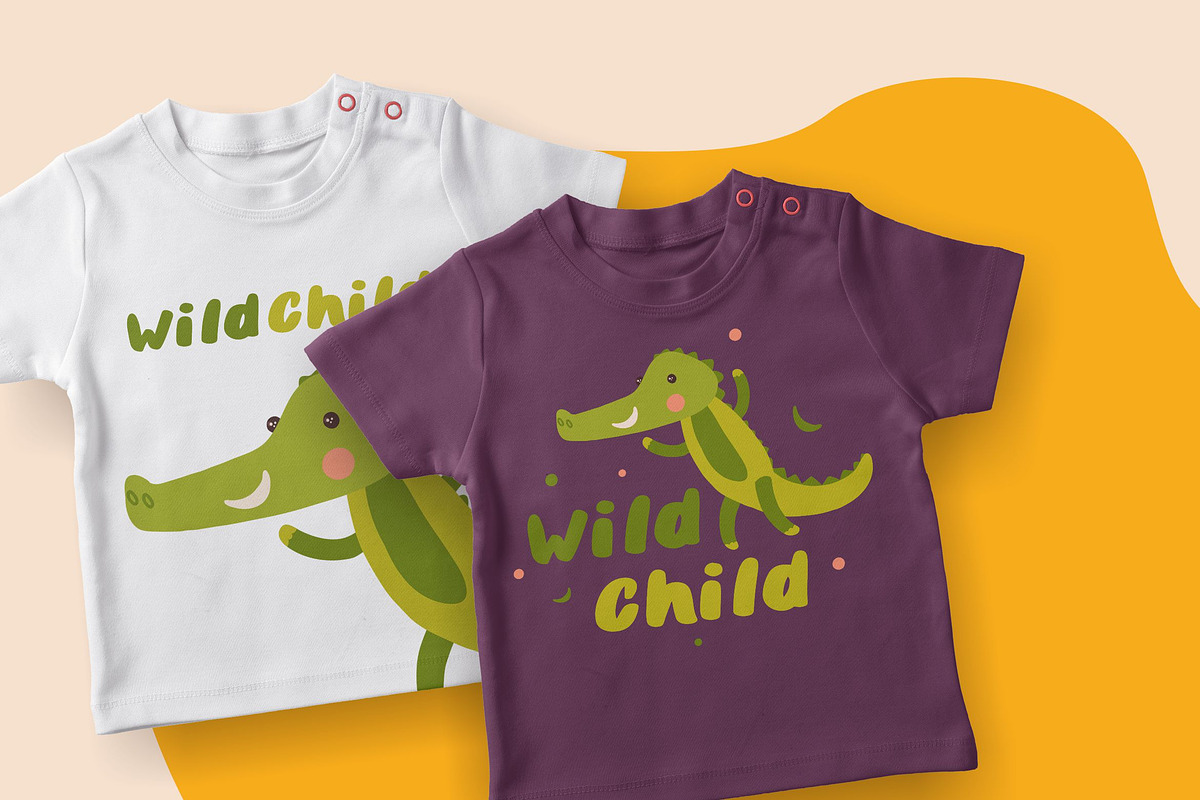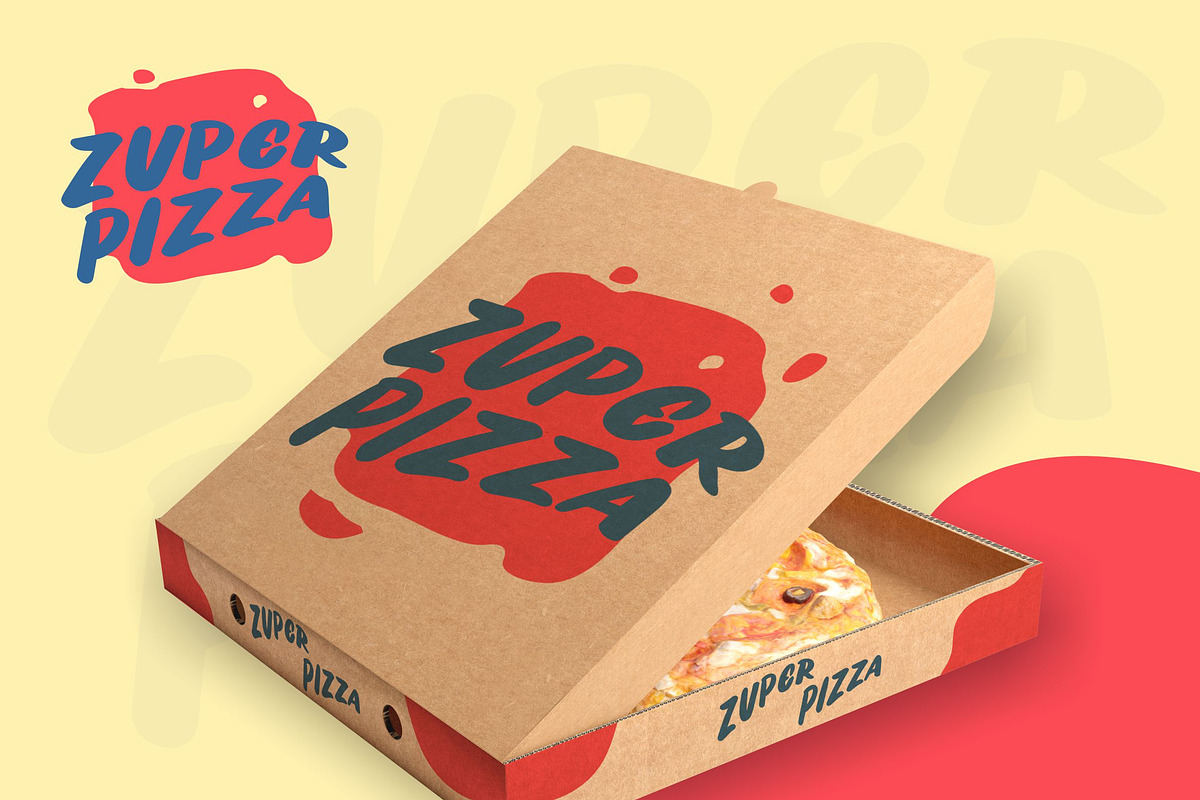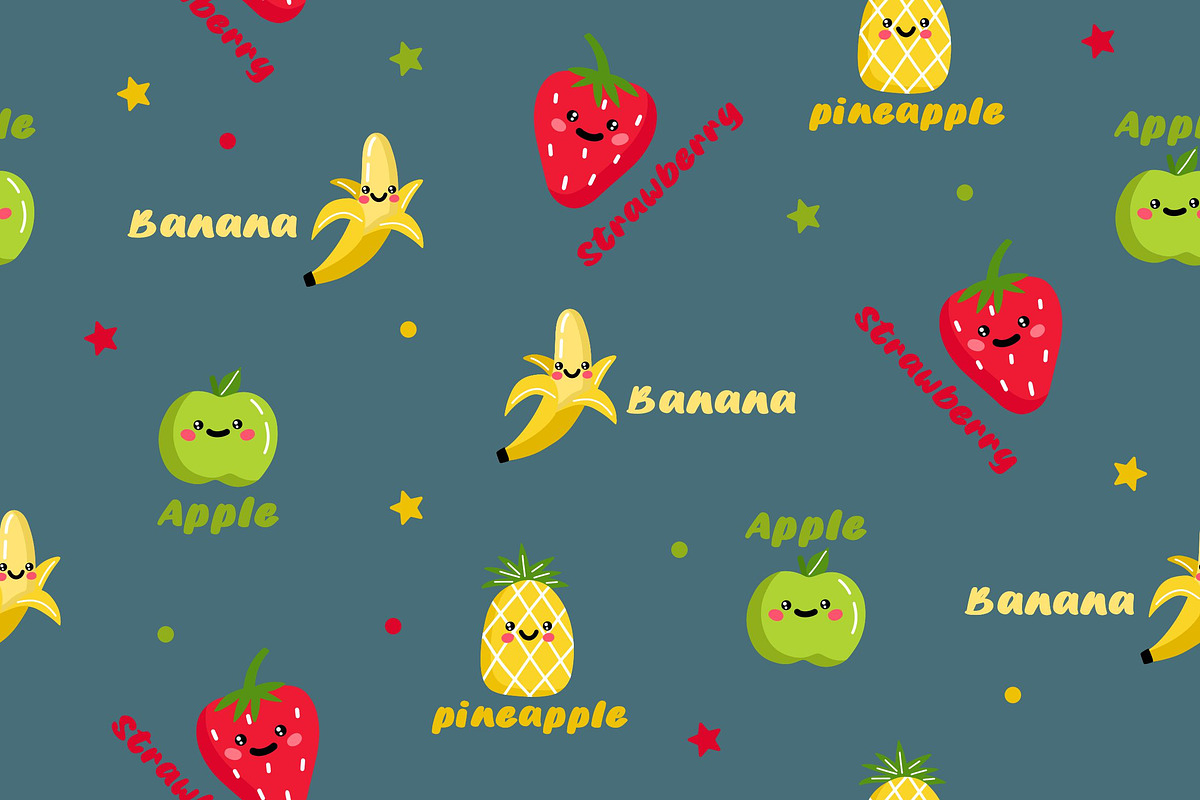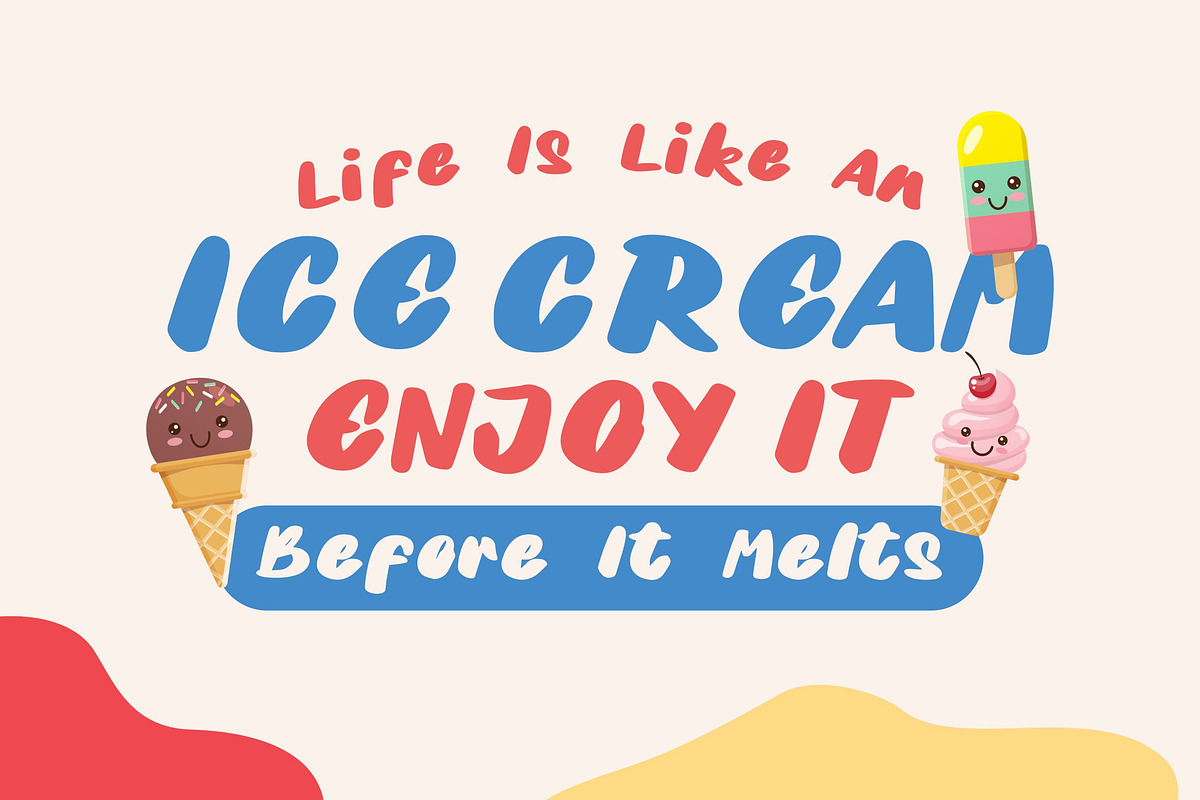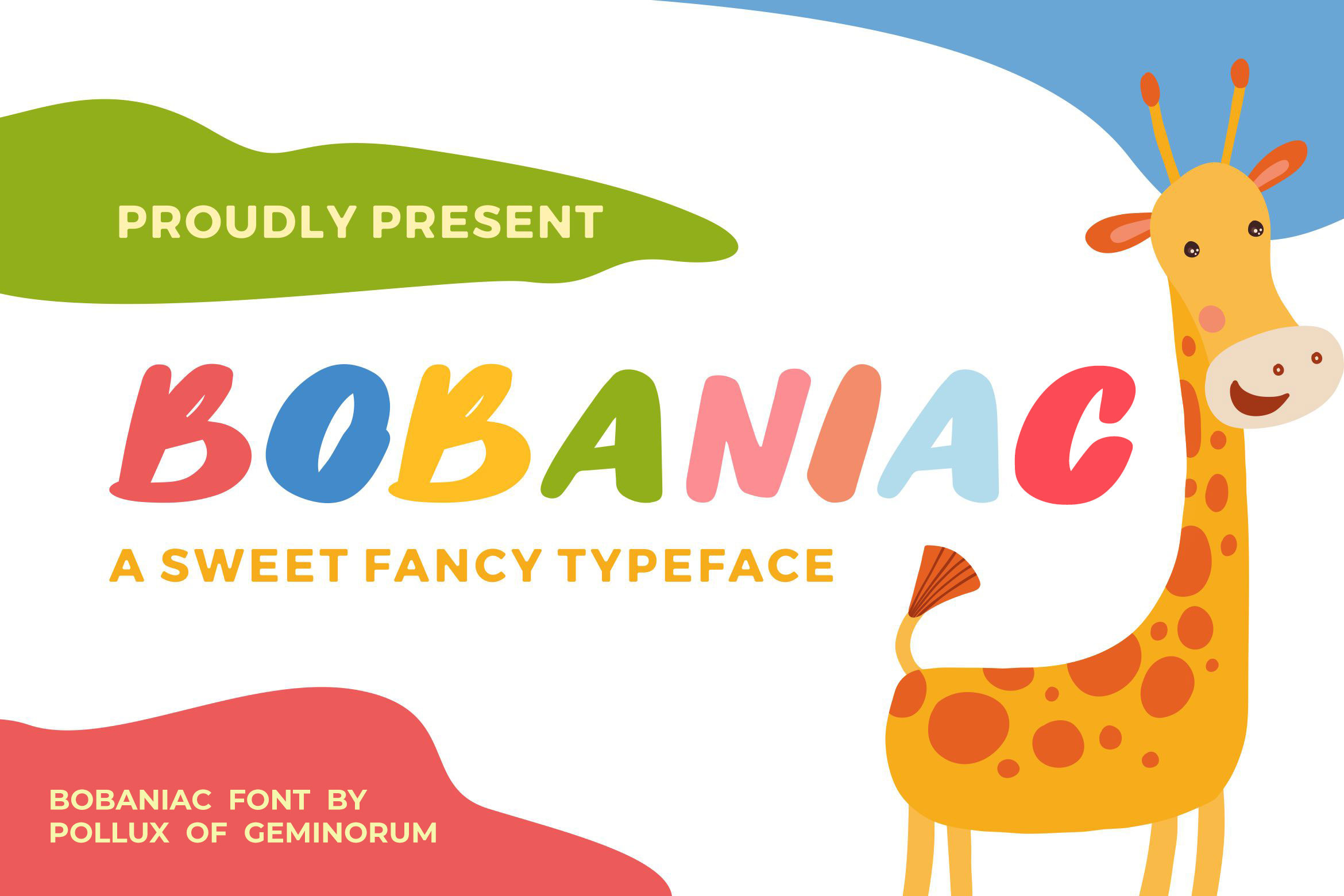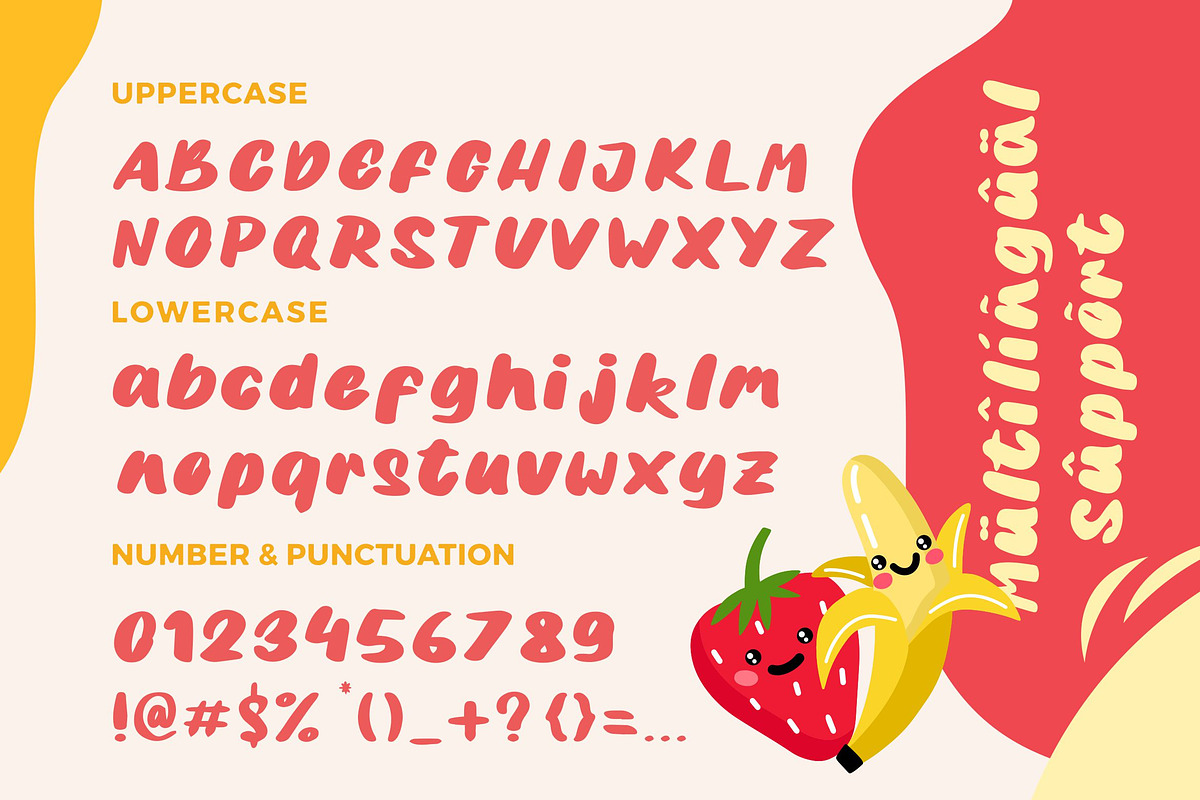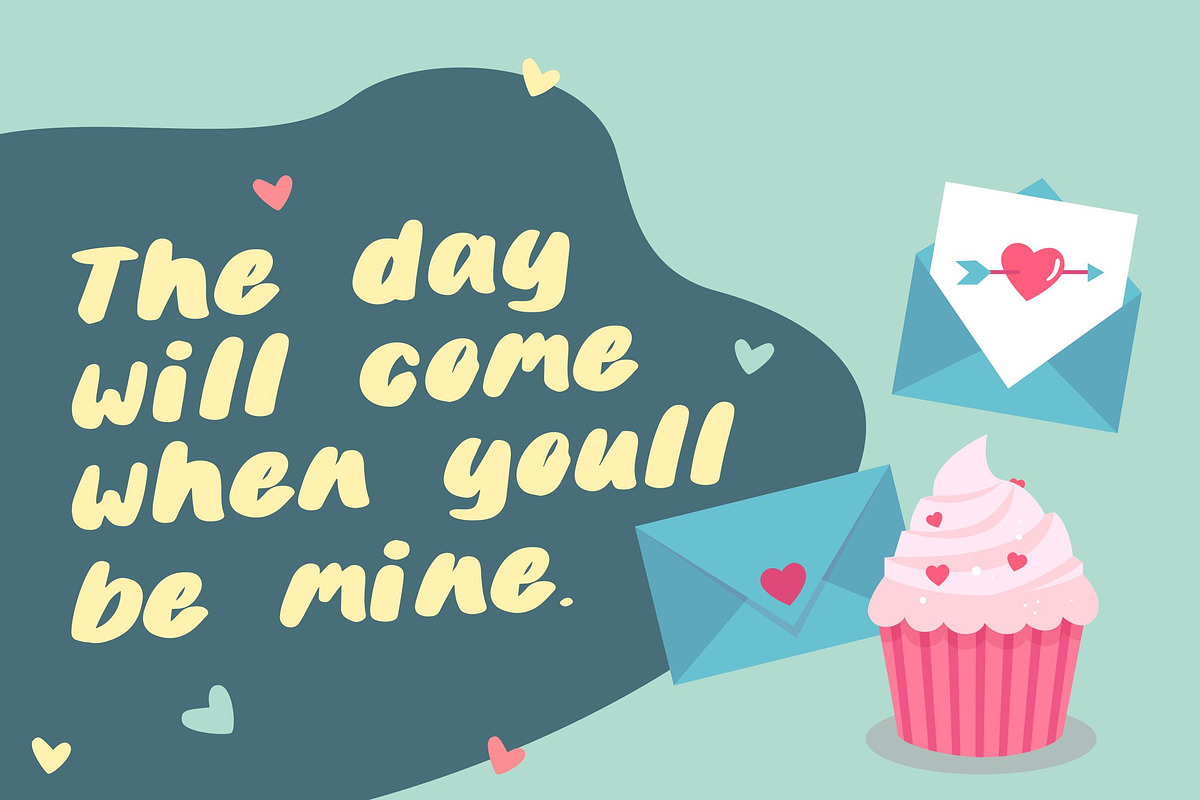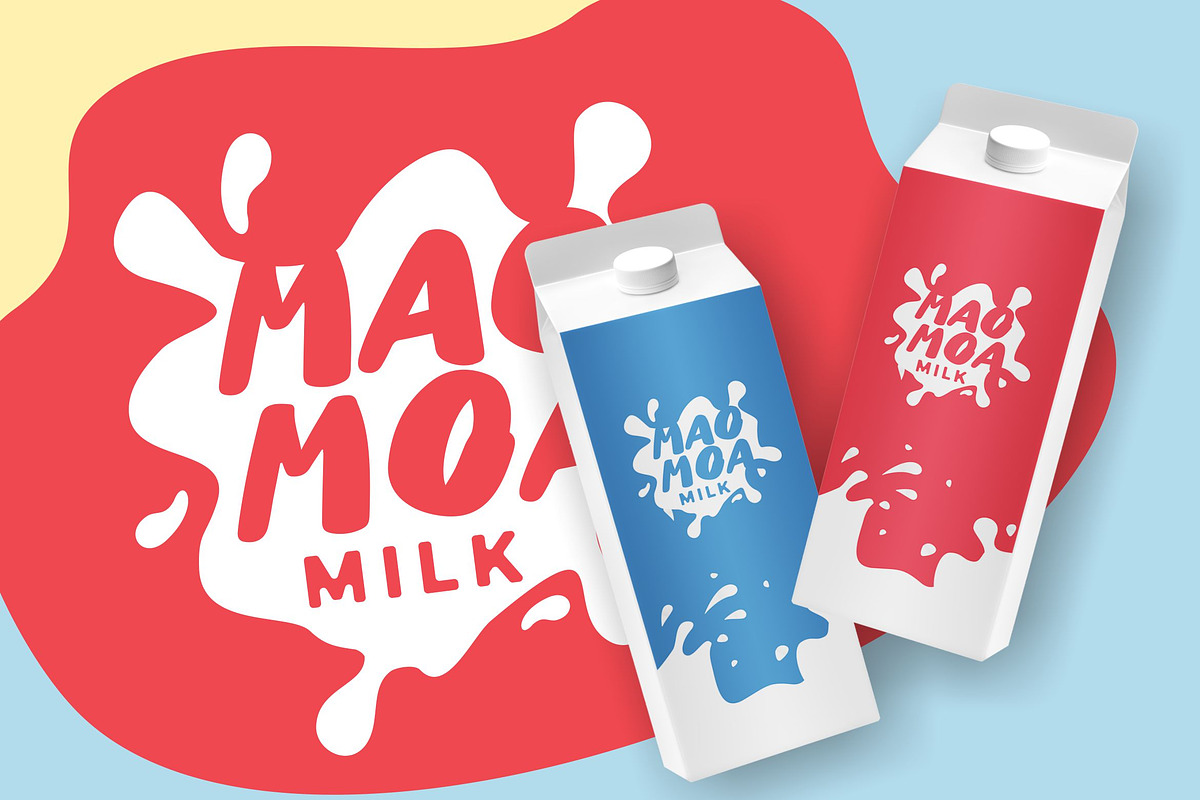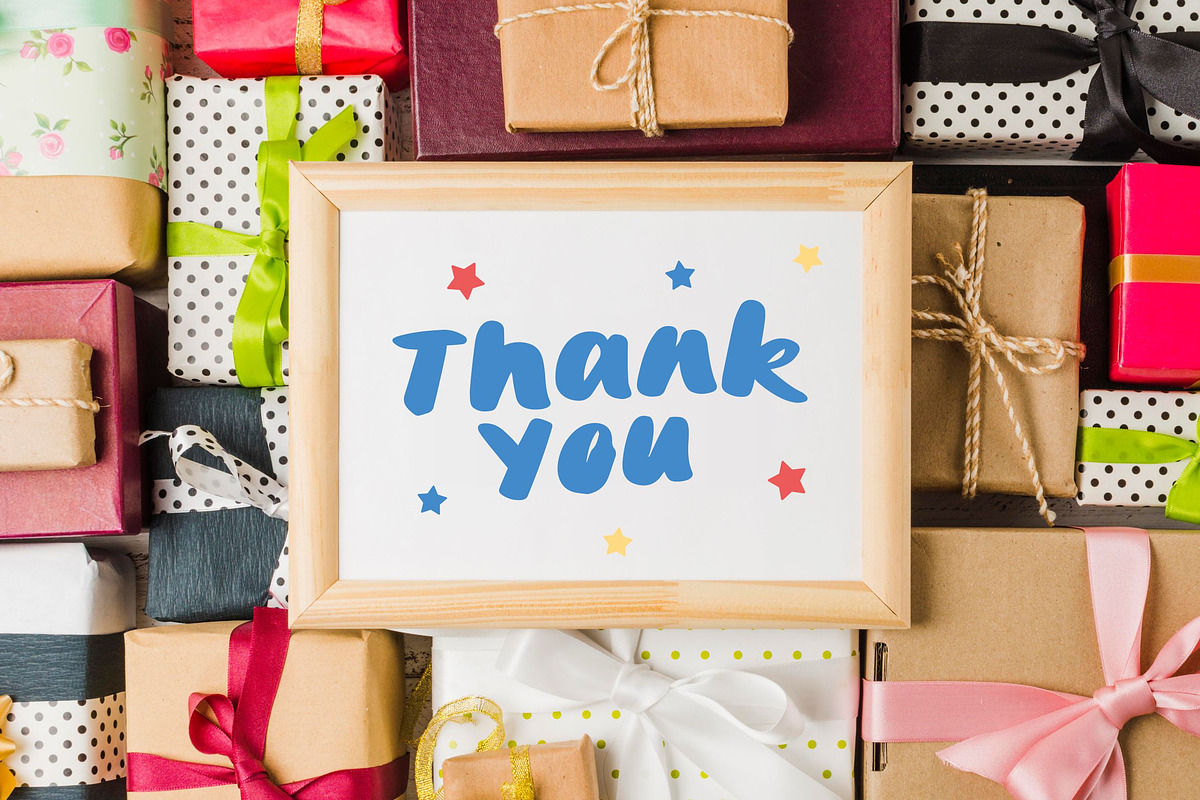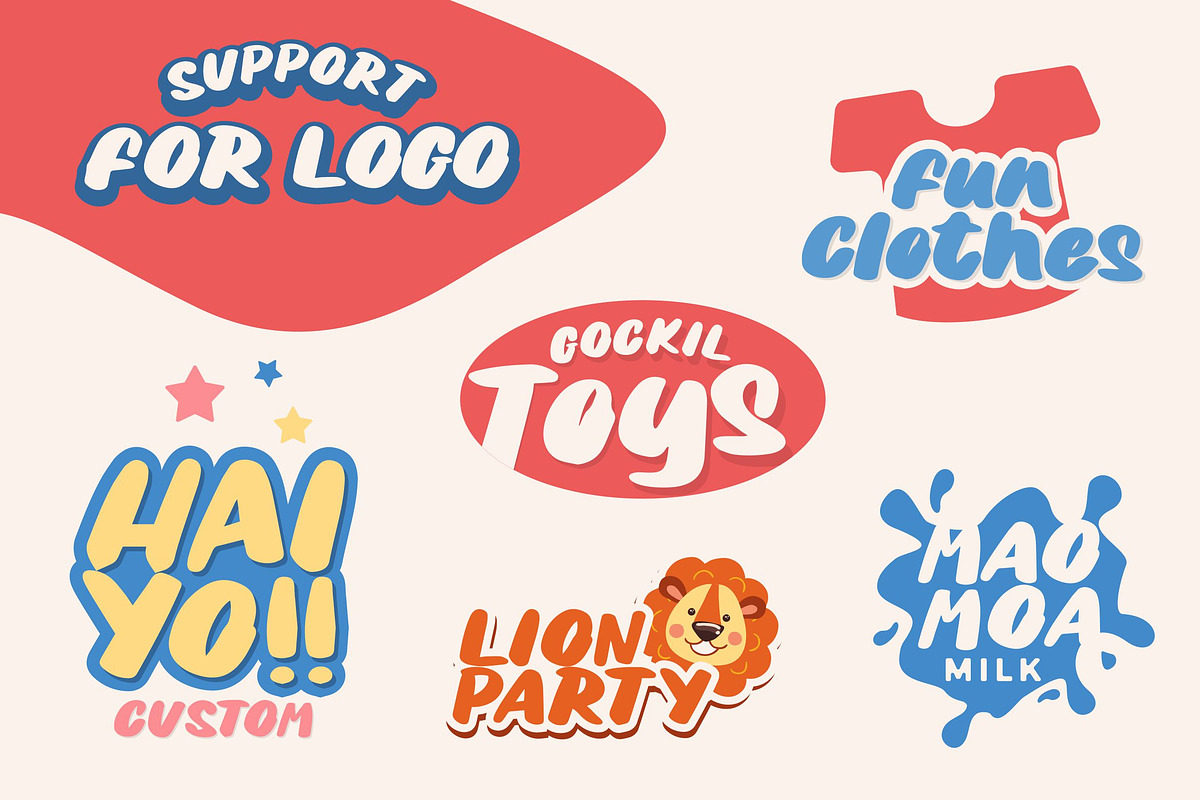
Bobaniac - Fun Font
Bobaniac is a cute and colorful fun font. It embodies playfulness and authenticity and is the perfect choice for any children's activity or school project. Add this chunky lettered font to your designs and notice how it makes them come alive!